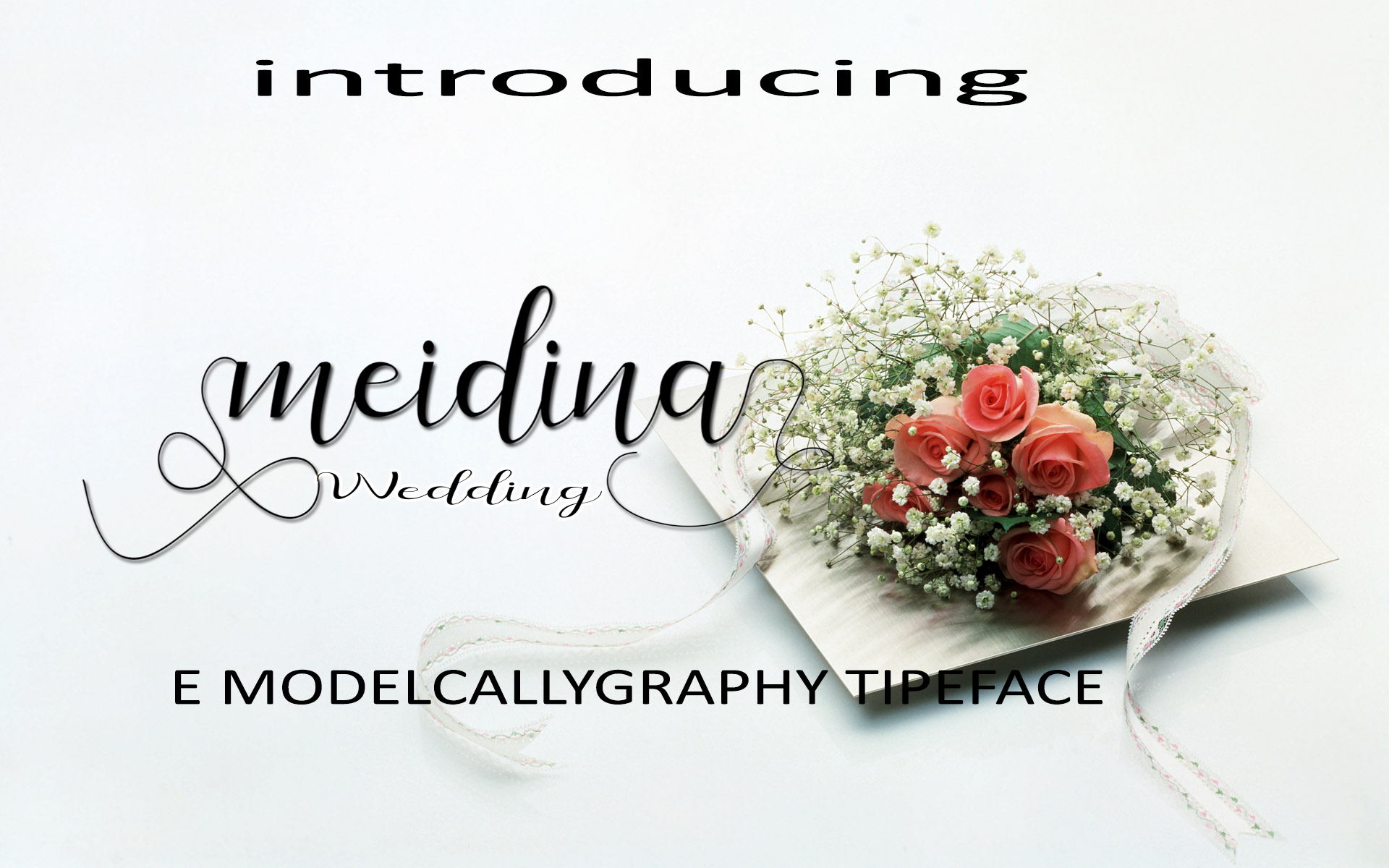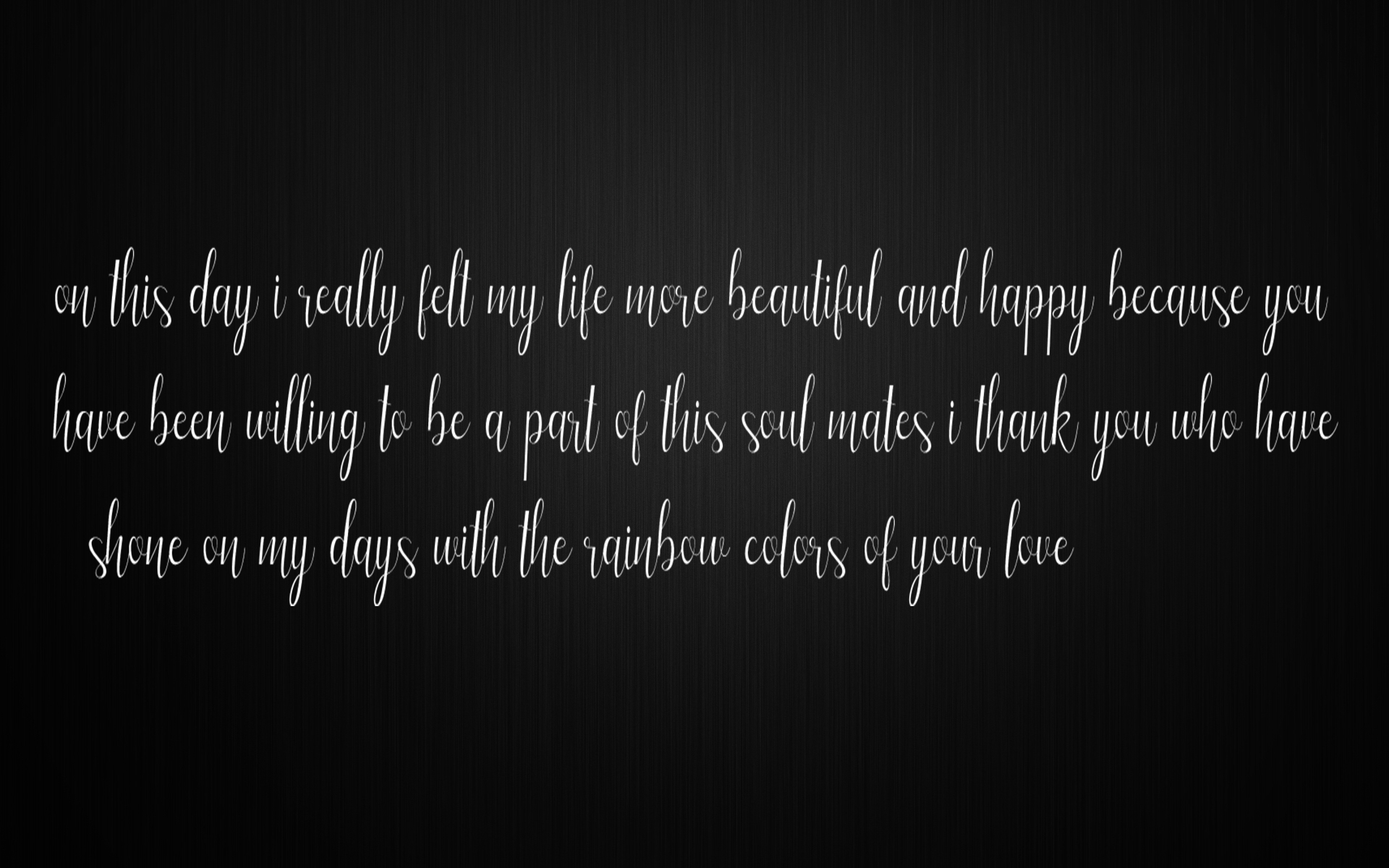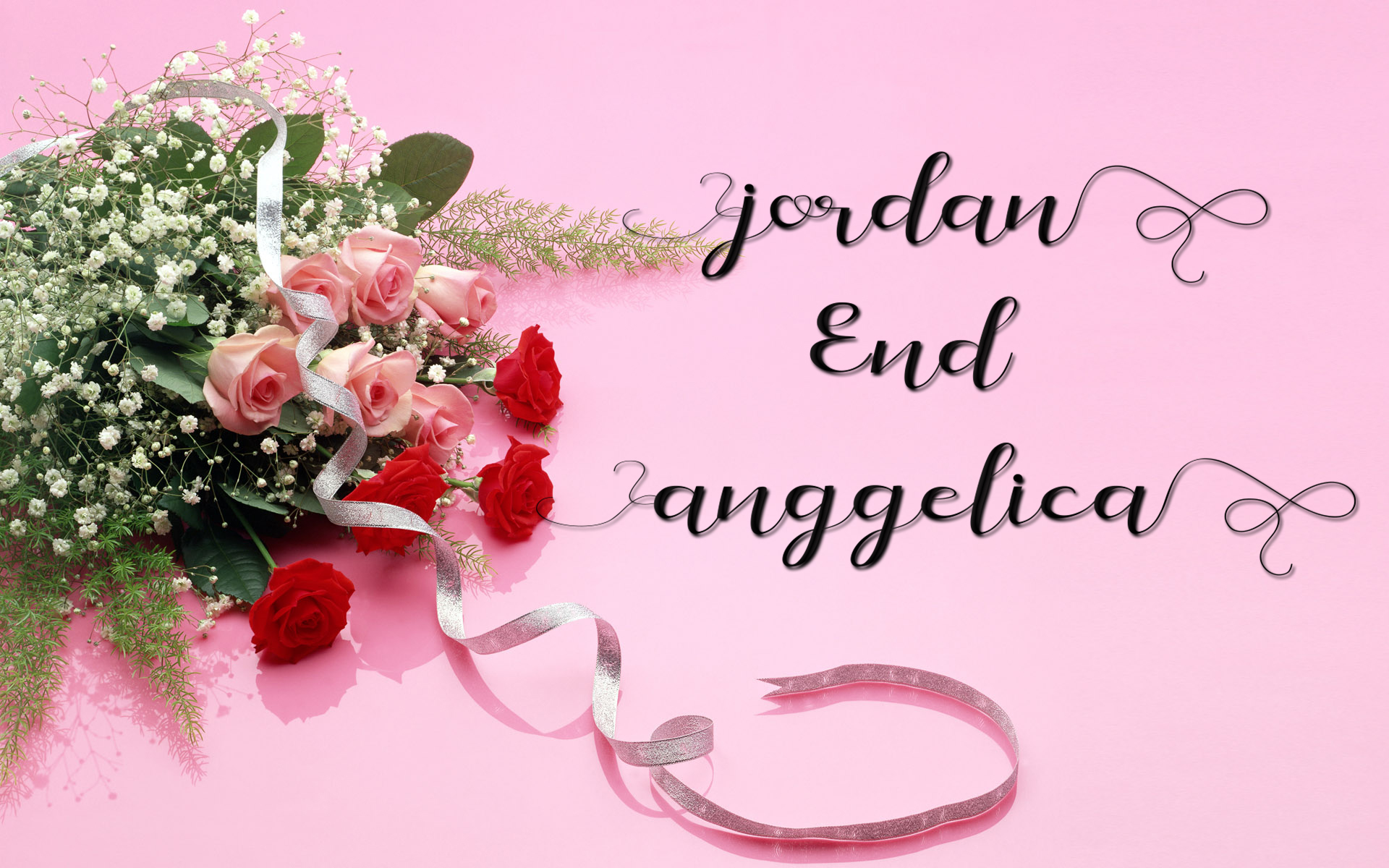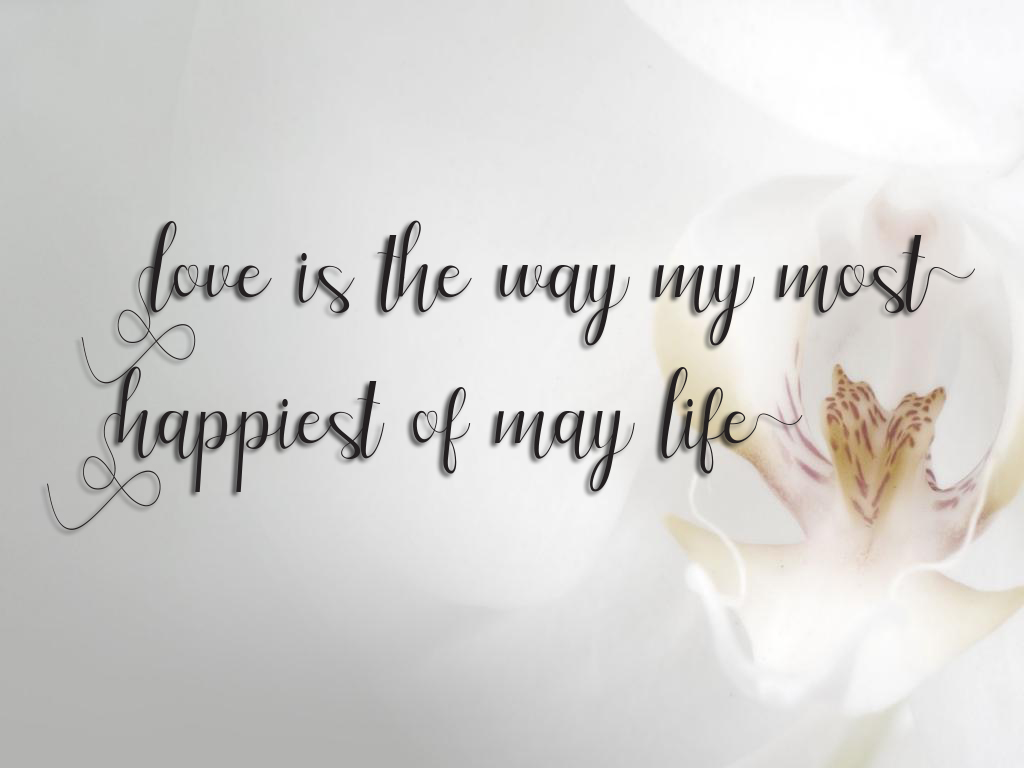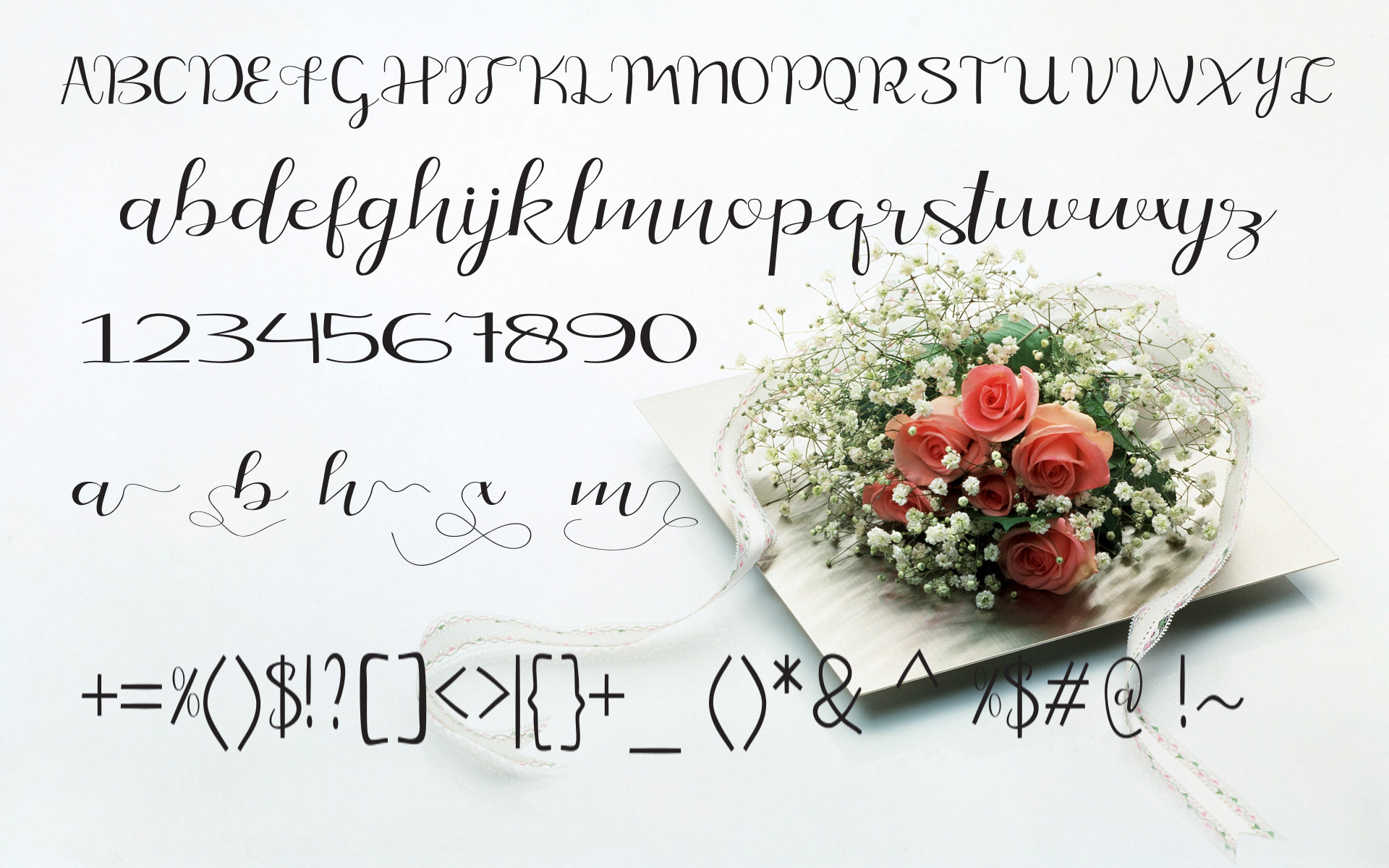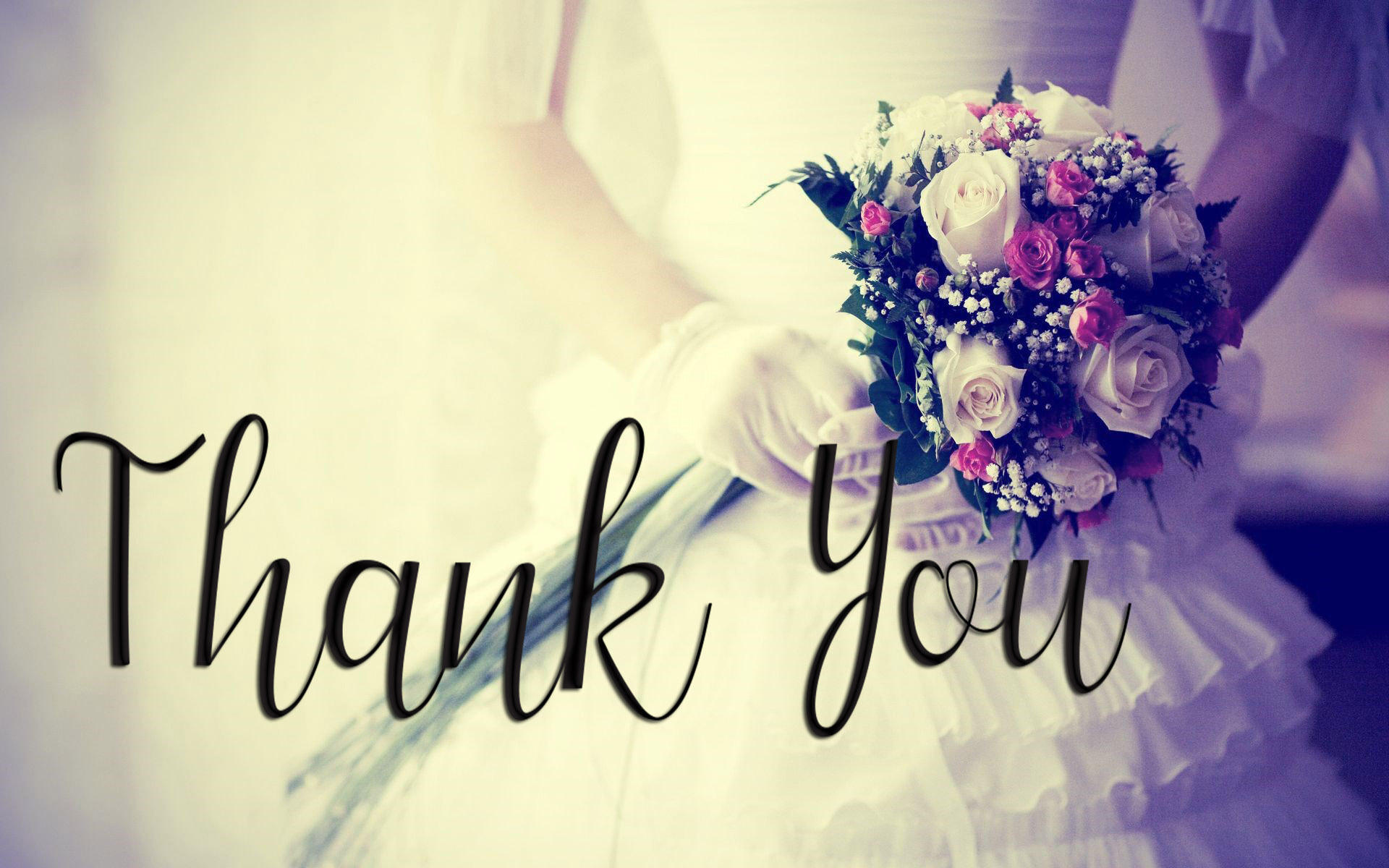
HomeScript FontsMeidina Font Script Fonts Meidina Font FacebookXPinterestWhatsApp Meidina Font Poster 2 Meidina Font Poster 3 Meidina Font Poster 4 Meidina Font Poster 5 Meidina Font Poster 6 About Meidina Font Meidina, a handwritten script font created by Madyen Studio. DOWNLOAD ON CREATIVE FABRICAThis font is sold and delivered by Creative Fabrica. Font Canyon may earn a commission if you buy through this link. People also explored Gliancha Font Rose Monogram Banner Font Vanilla Font Amelia Virginia Font Bestvall Font Valline Wish Font Delvon Light Font Casanova Font Balteria Sulbarline Font 347 0 TagsMeidina Font Previous articleJokoanakteka FontNext articleBadger Font LEAVE A REPLY Cancel reply Comment: Please enter your comment! Name:* Please enter your name here Email:* You have entered an incorrect email address! Please enter your email address here Website: Save my name, email, and website in this browser for the next time I comment. Personal Use Free A New Nattyla Personal Use Free Read more about this font Love Memories Personal Use Free Read more about this font Spaghetti Personal Use Free Read more about this font Befindisa Personal Use Free Read more about this font BLOG To increase your work productivity, choose the most readable fonts. In today's fast-paced work environment, where digital communication and information consumption are integral to our daily routines, the choice of fonts can significantly impact... Best Fonts for YouTube Videos: Make Your Thumbnails Stand Out Best Fonts for T-Shirt Design – Top 2025 Picks Top 10 Handwritten Fonts That Elevate Your Designs